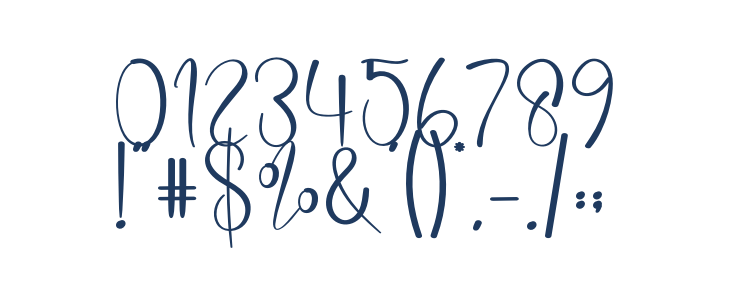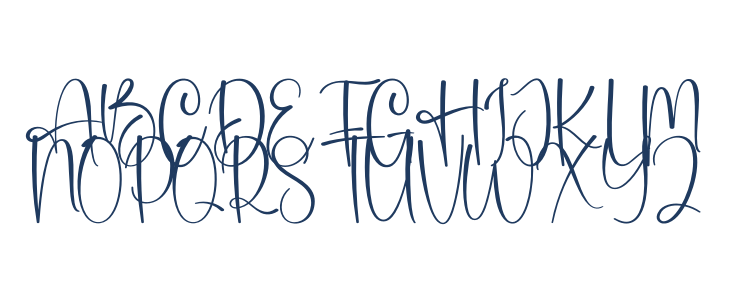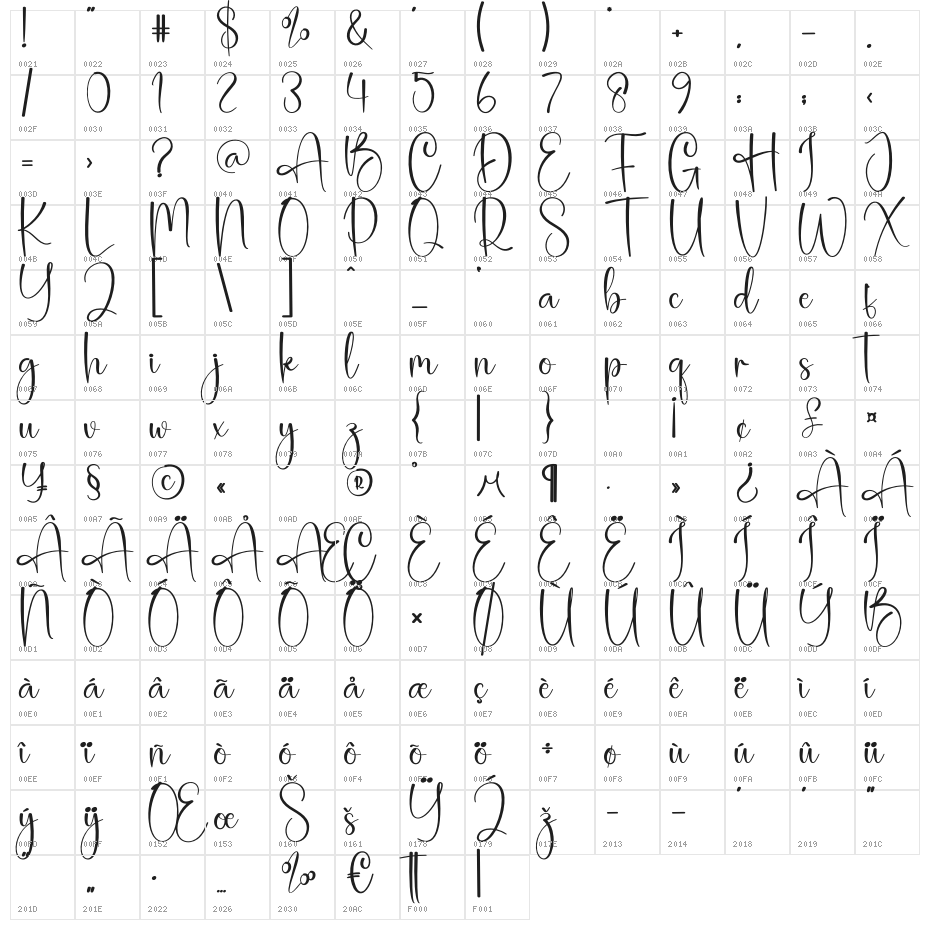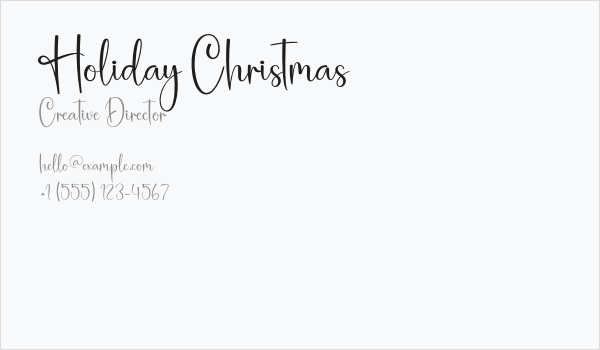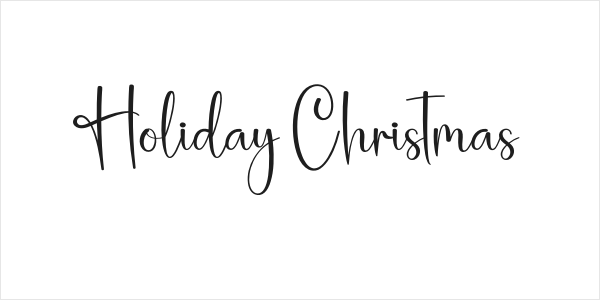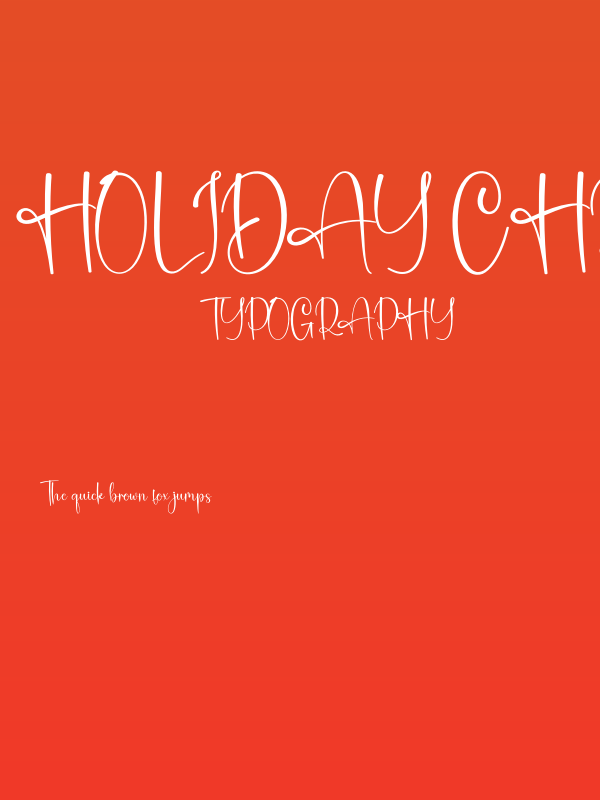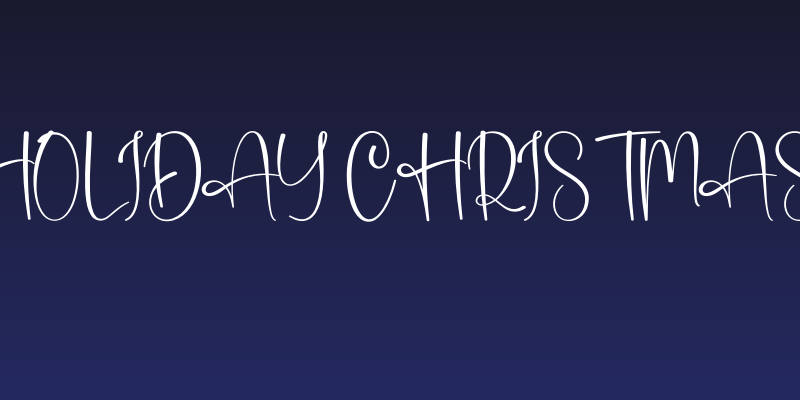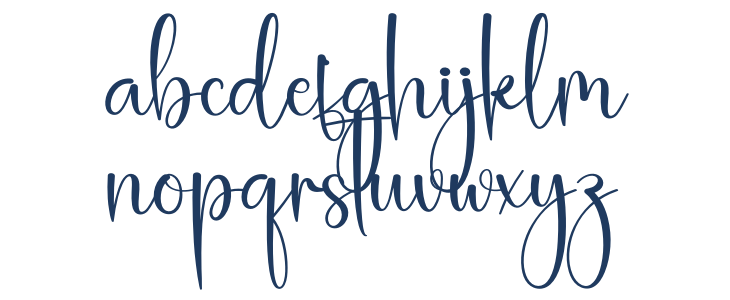
Holiday Christmas Font
Holiday Christmas Description
A playful, handwritten script font with tall, looping ascenders and descenders, featuring thin strokes and a whimsical, informal style. The characters are loosely spaced and have a casual, festive appearance.
| Overall Style | Decorative, Playful, Festive |
| Use Case | Headlines, Greeting cards, Invitations, Decorative text |
| Proposed Projects | Holiday cards, festive invitations, event posters, playful branding, social media graphics. |